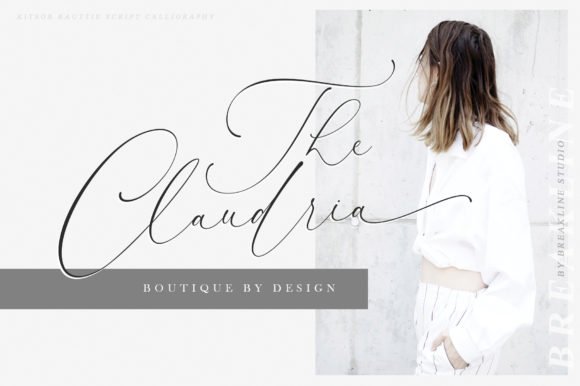
The Kitsor Rauttie is a lovely signature font. It has an amazing natural style and includes beautiful calligraphy. It’s perfect for watermarks on photography, signature or signature logo designs, quotes, album covers, business cards, and more!